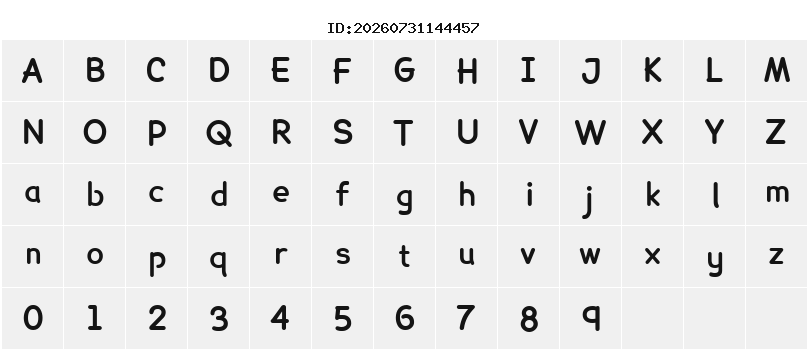
Lexia Preview
• Font Name: Lexia
• Font ID: Macromedia Fontographer 4.1.5 Lexia Bold
• Full Font Name: Lexia Bold
• Version: Macromedia Fontographer 4.1.5 17/7/04
• PostScript Name: Lexia-Bold
• Character Count: 257
About Lexia.ttf
Lexia.ttf is a modern, elegant sans-serif font designed for ultimate readability and visual harmony. Perfect for branding, headlines, web design, and print materials.